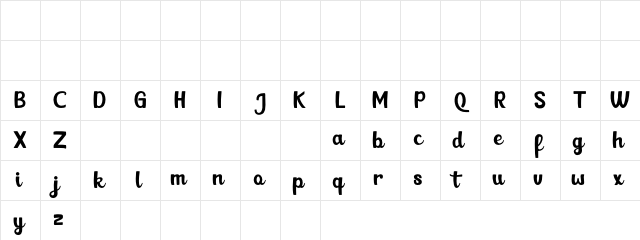
Branday Regular Free Font
Branday Regular
Designer: Wahyu Saputra
Design Context for Branday
Branday is a composed and adaptable typeface that performs quietly and consistently across a wide range of design contexts.